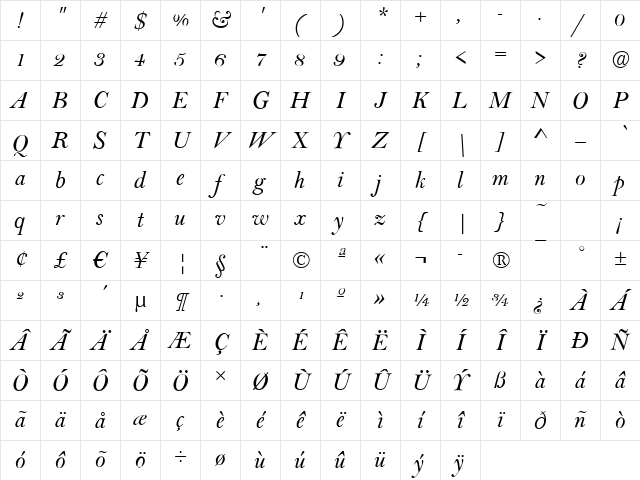
Baltimore Italic
Baltimore Family
Design Context for Baltimore
Baltimore is a composed and adaptable typeface that performs quietly and consistently across a wide range of design contexts. The slanted form adds forward momentum and visual energy.
Pro Tip: Use Baltimore for emphasis, pull quotes, and subheadings where its slanted energy can add rhythm to the layout.